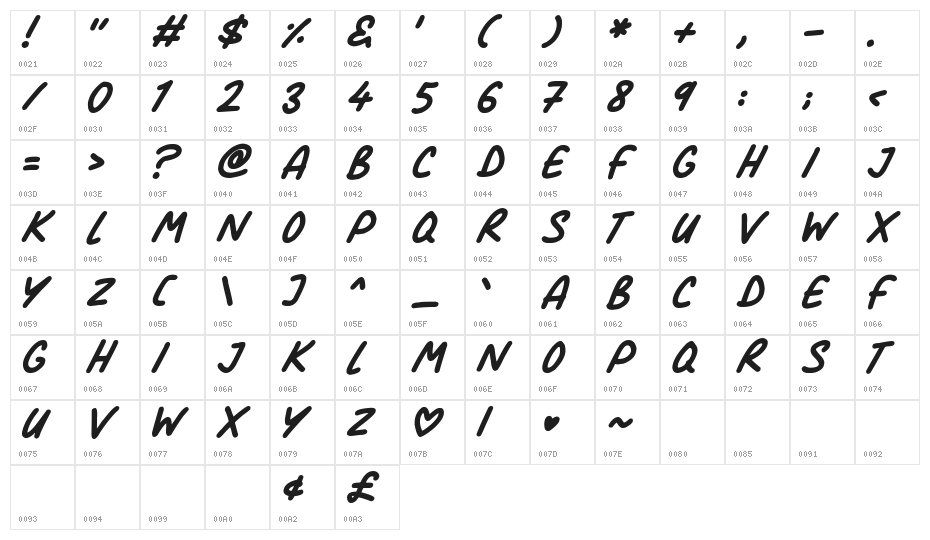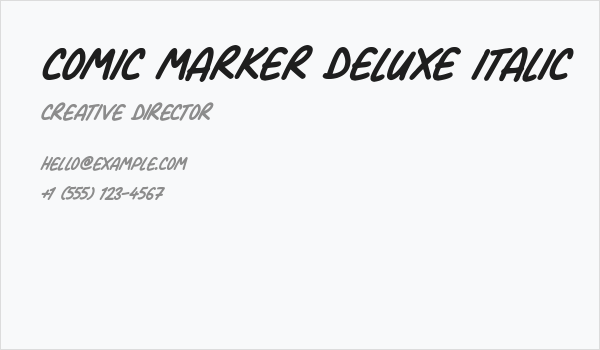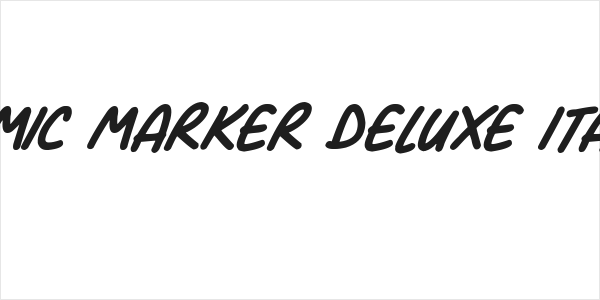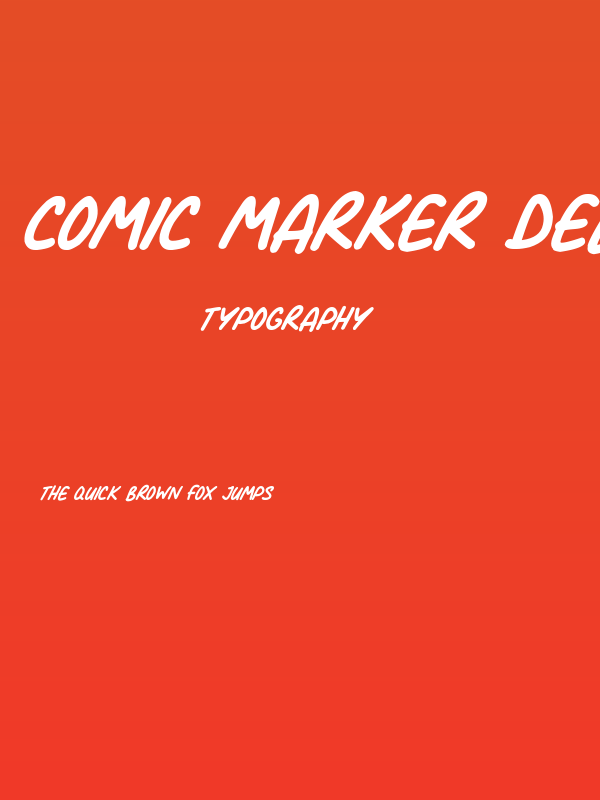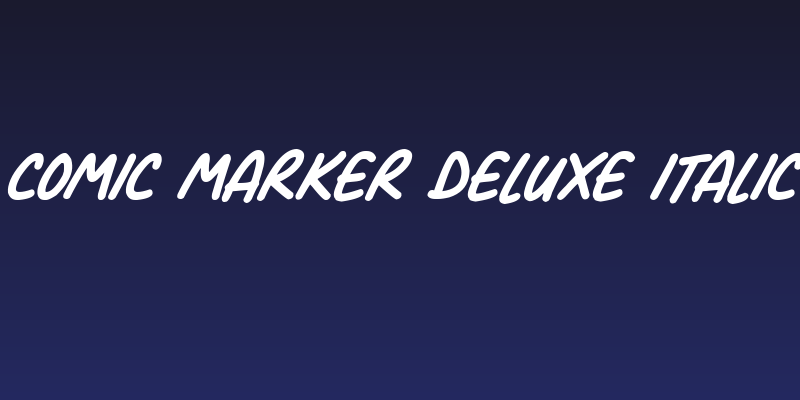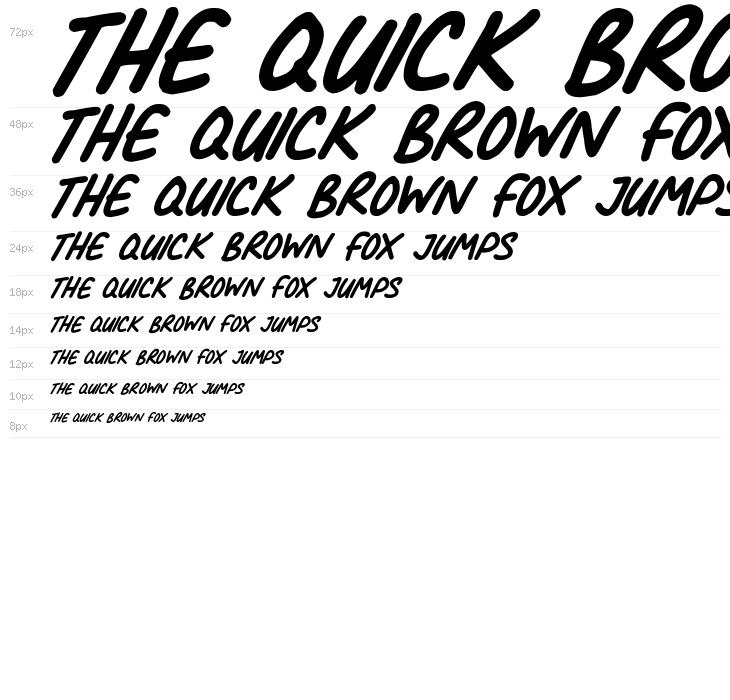
Comic Marker Deluxe Italic Font
Comic Marker Deluxe Italic Description
This font exudes a playful and casual vibe, characterized by its bold, rounded strokes and smooth, flowing curves. The letters are slightly slanted, giving it an italicized appearance, which adds to its dynamic and energetic feel. The uppercase and lowercase letters maintain a consistent style, with a uniform stroke weight that ensures readability. The numbers and special characters are crafted with the same playful touch, making them blend seamlessly with the alphabet. This font is ideal for projects that require a fun and informal tone, such as comic books, children's books, or playful branding.
| Proposed Projects | Comic books, children's books, playful branding, casual invitations. |